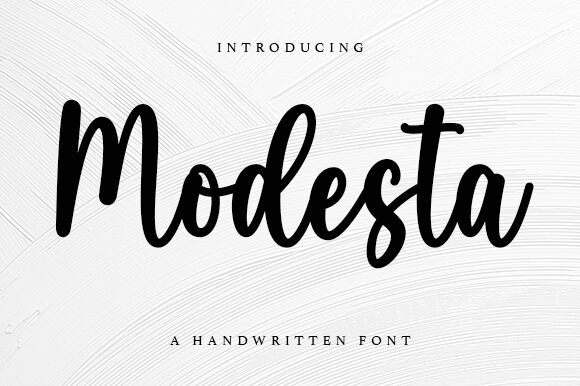
Modesta
Modesta, a creation by Wahyu Studio, is a handwritten font that embodies effortless elegance and a personal touch. Its fluid strokes and varied line weights evoke the authenticity of ink on paper, making it an ideal choice for designs that require an intimate and bespoke feel. The slight slant and the playful movement of the letters add to its charm, infusing your creative projects with warmth and character.
The aesthetically pleasing curves and subtle irregularities of Modesta offer a balance between readability and artistic flair. This font's style lends itself beautifully to invitations, branding materials, social media graphics, and any project where a touch of human presence is desired. With Modesta's stylish appearance that reflects careful craftsmanship, designers can bring their work to life with an approachable yet sophisticated handwritten typeface.